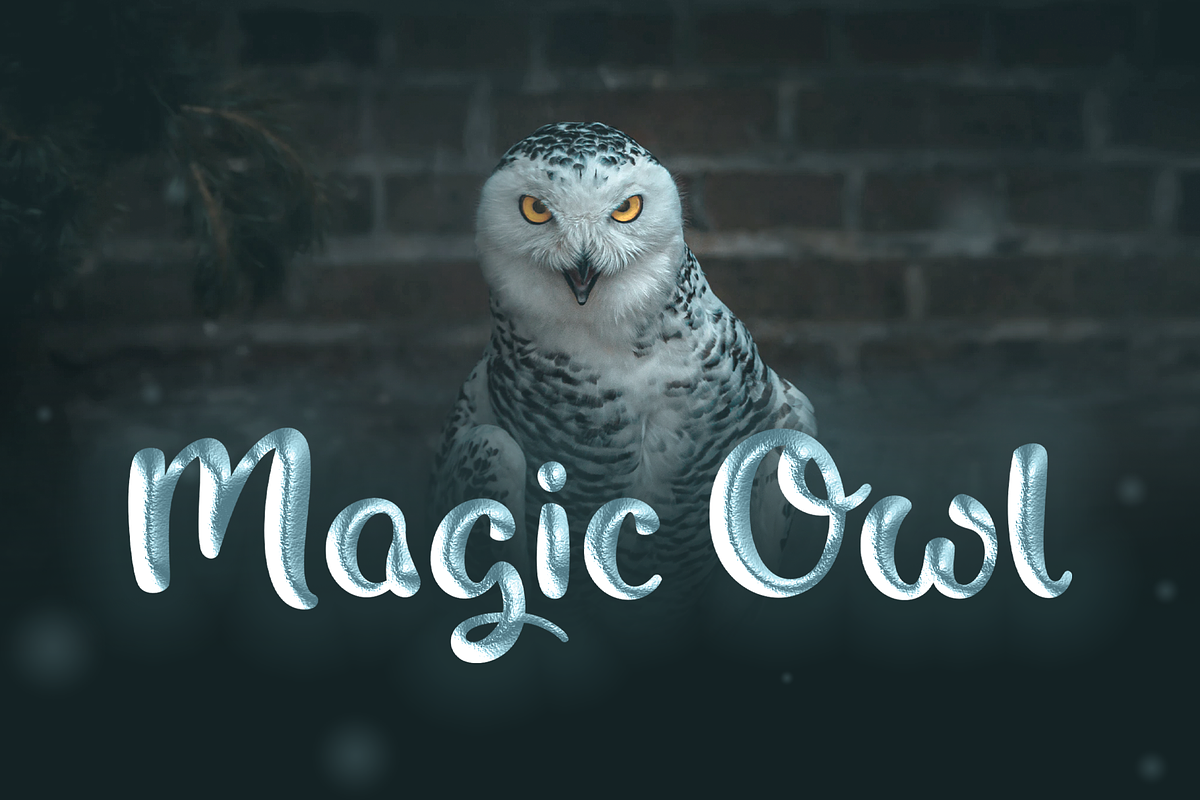
Magic Owl - An enchanting Typeface Free Download
Step into a whimsical world of creativity with Magic Owl Typeface Free Download — an enchanting typeface that brings charm, mystery, and storytelling magic to every design. Perfect for fantasy-themed projects, children’s books, magical branding, and dreamy invitations, this font captures imagination at first glance.
With playful curves and hand-crafted details, Magic Owl feels straight out of a fairy tale. The typeface includes a full set of uppercase and lowercase letters, punctuation, numbers, and multilingual support — giving designers everything they need to create unforgettable visuals.